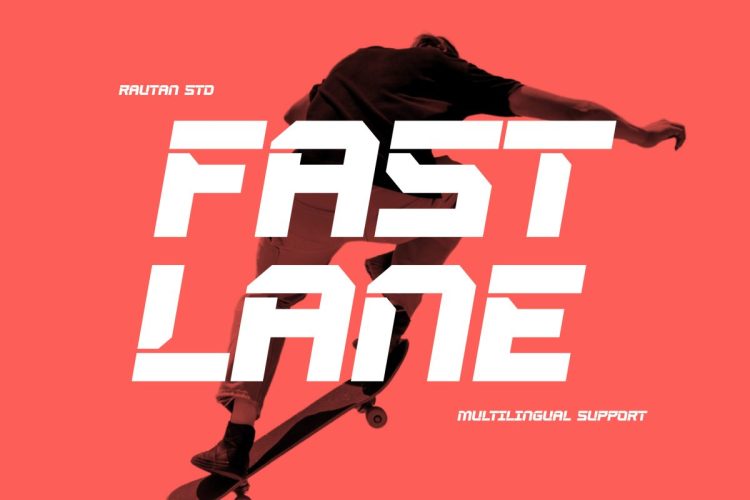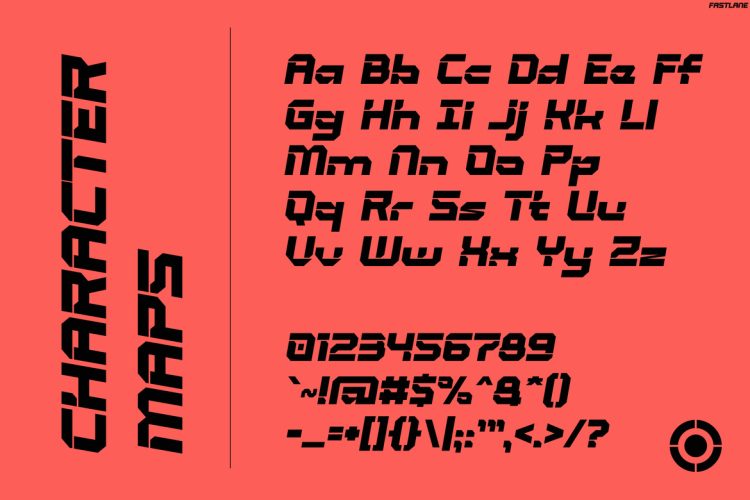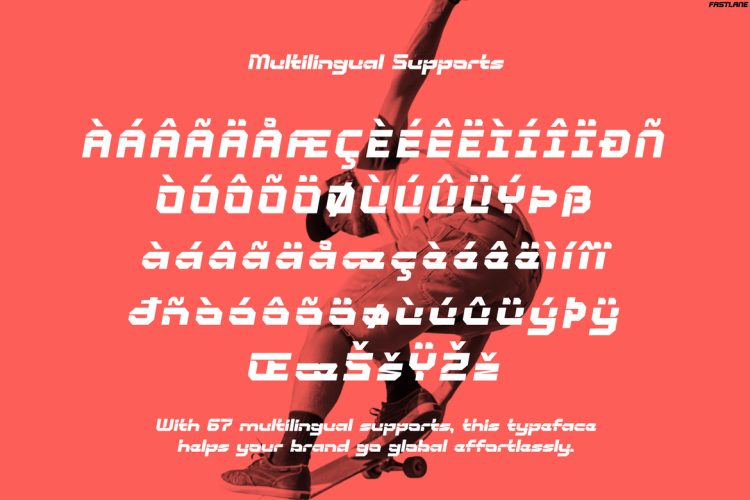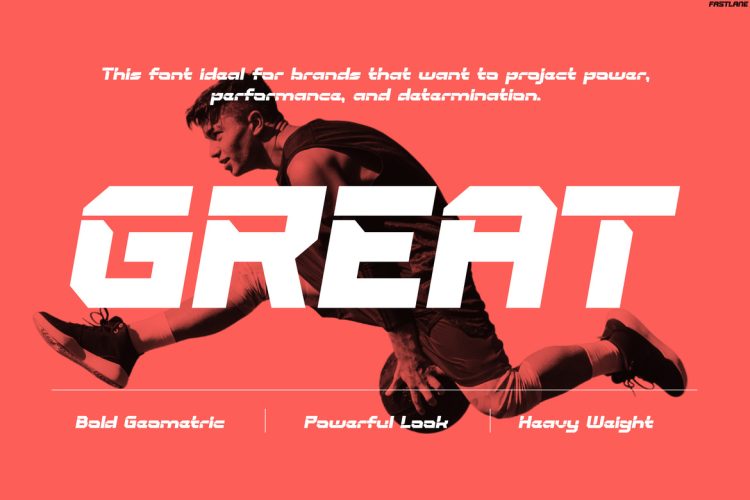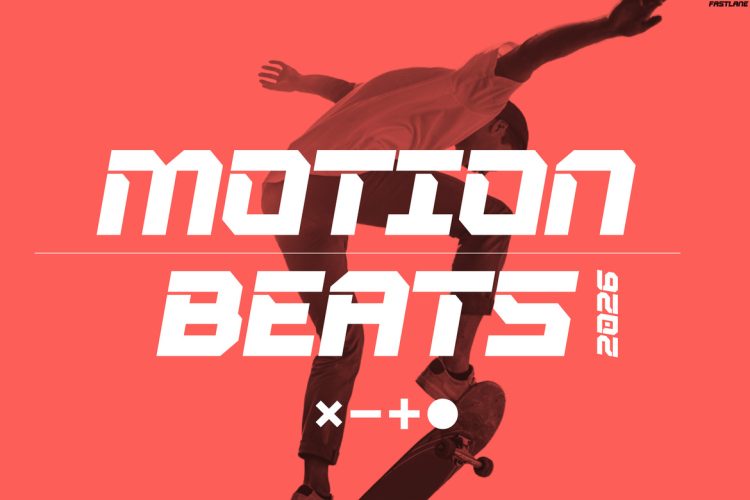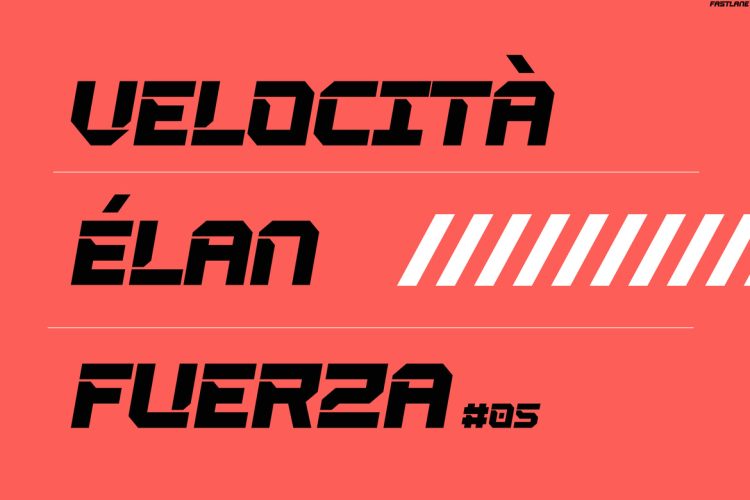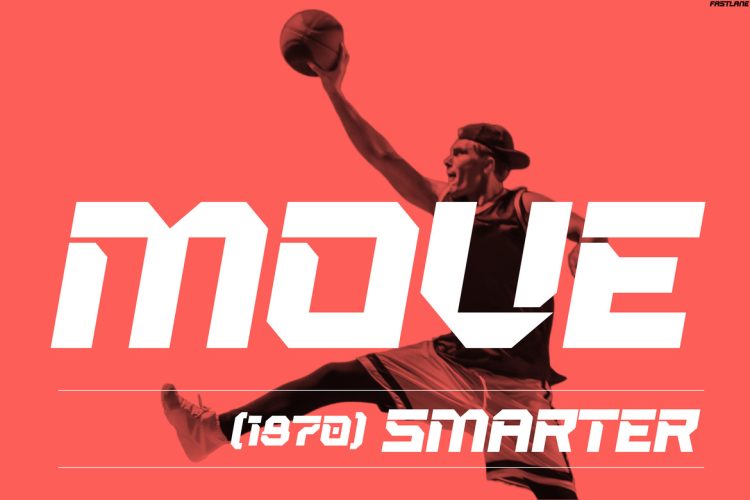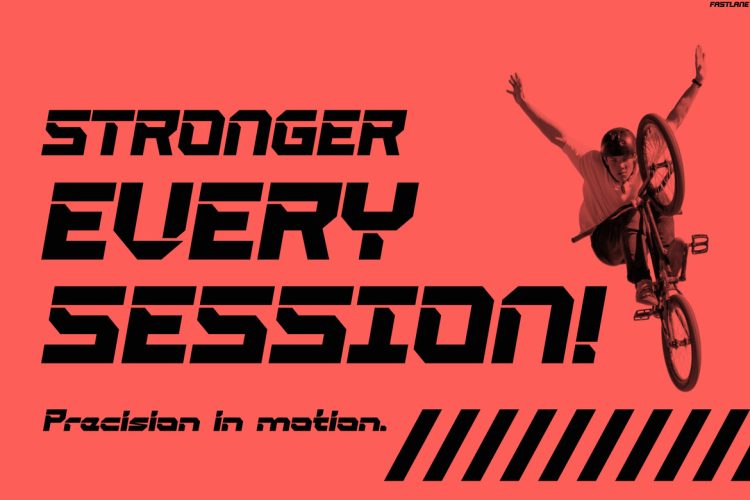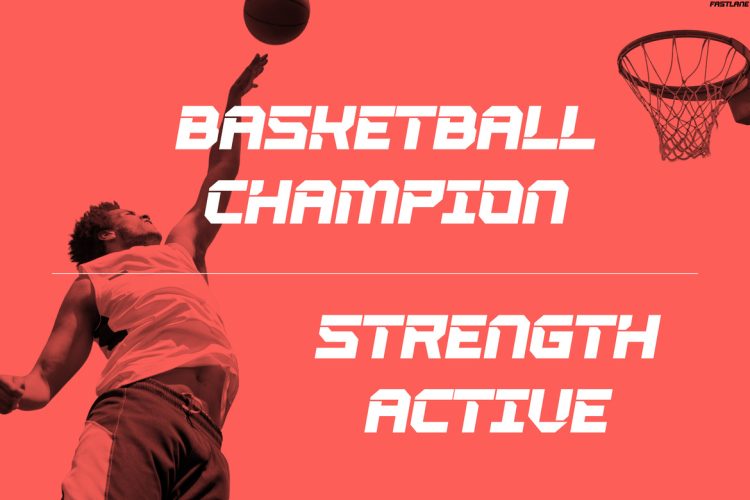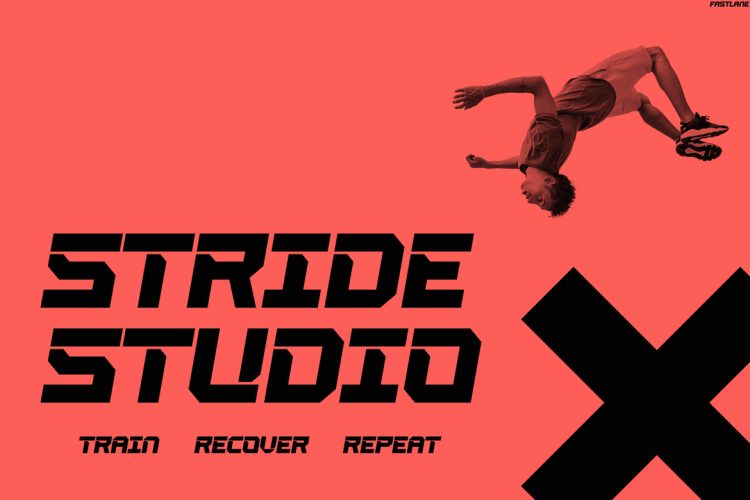
Modern Font FASTLANE โ Built for Speed. Designed to Dominate.
Modern Font FASTLANE captures the thrill of speed through bold, forward-moving letterforms that immediately energize every design. Rather than relying on ordinary typography, FASTLANE combines sharp angles, aerodynamic cuts, and futuristic details to create a powerful visual identity. Moreover, every character reinforces movement and confidence, allowing your headlines to stand out instantly. As a result, your projects feel faster, stronger, and more competitive. At the same time, the clean structure keeps every word highly readable across print and digital media. Furthermore, with Multilingual Support for 67 languages, FASTLANE helps brands communicate consistently with audiences around the world.
Why Modern Font FASTLANE Drives Better Design
Modern Font FASTLANE gives creative projects the speed and energy they deserve. Not only does it produce eye-catching headlines, but it also creates a bold visual identity that feels modern and professional. In addition, its sporty character works perfectly for racing events, fitness campaigns, gym branding, esports teams, automotive promotions, sportswear collections, YouTube thumbnails, posters, product packaging, and social media graphics. Likewise, the dynamic letterforms pair effortlessly with action photography and contemporary layouts. Meanwhile, the balanced geometry keeps every composition clean and impactful. Consequently, your branding becomes more memorable, more confident, and easier to recognize.
- Sports branding
- Racing and motorsport events
- Fitness and gym promotions
- Esports and gaming teams
- Sportswear collections
- Automotive advertising
- Posters and social media graphics
- Modern logos and packaging
Shift Into High Gear
If you want typography that never slows down, FASTLANE is ready to lead the race. Furthermore, its aggressive style instantly injects momentum into every layout. As a result, your designs capture attention faster and leave a stronger impression. Finally, choose FASTLANE today and push every headline beyond the finish line with unstoppable speed and bold personality.